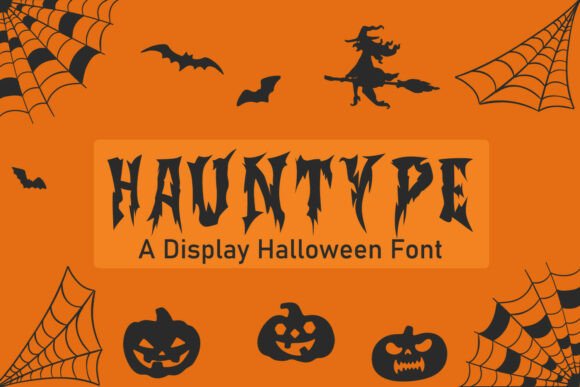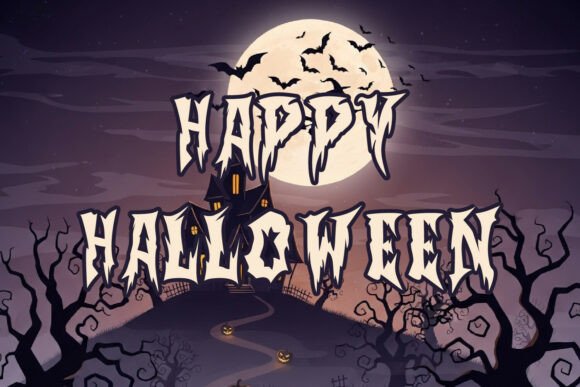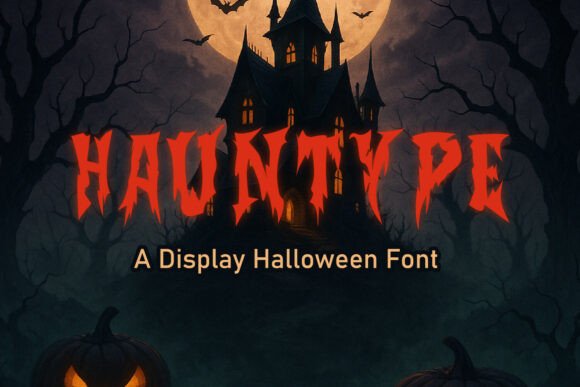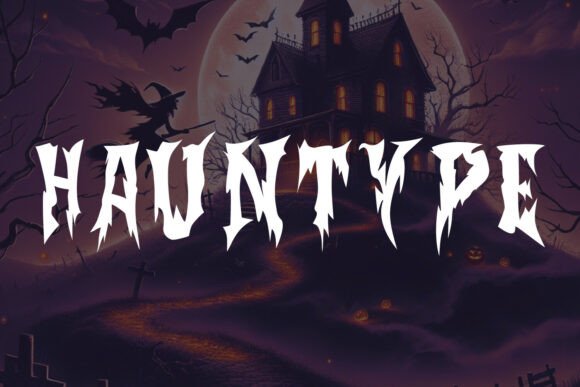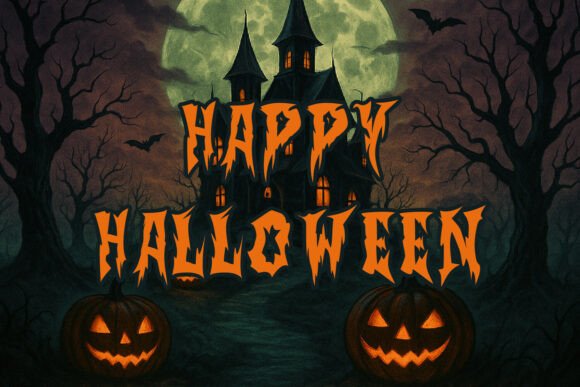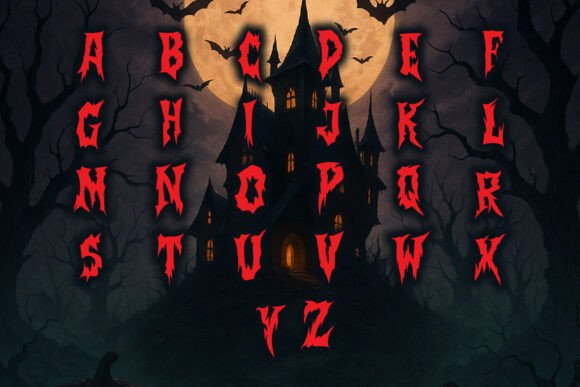
Hauntype Font: The Spooky Display Font for a Frightfully Fantastic Halloween
Are you looking for a font that will add a touch of spooky fun to your Halloween projects? Look no further than Hauntype, a creepy and eye-catching display font that’s perfect for bringing your Halloween designs to life. Whether you’re creating invitations, party flyers, posters, social media graphics, or more, Hauntype’s jagged, eerie letterforms are sure to create a haunted vibe that will leave a lasting impression.
What is Hauntype Font?
Hauntype is a unique and terrifyingly cool display font that’s specifically designed for Halloween-themed projects. Its jagged, irregular letterforms are reminiscent of creepy, abandoned mansions, haunted houses, and spooky forests, making it the perfect choice for any design that needs a touch of frightful fun. The font’s distressed texture and irregular shapes add to its eerie charm, making it a must-have for designers and crafters looking to create spooky and eye-catching designs.
Perfect for Halloween Projects
Hauntype is the perfect font for a wide range of Halloween projects, including:
- Halloween invitations: Create spooky and inviting invitations that will set the tone for a howling good time.
- Party flyers: Design eye-catching flyers that will grab attention and get people excited for your Halloween party.
- Posters: Create creepy and compelling posters that will add a touch of frightful fun to any room.
- Social media graphics: Add a touch of spooky charm to your social media graphics and make your Halloween content stand out.
- T-shirt designs: Create hauntingly cool t-shirt designs that will make your friends and family scream with delight.
Why Choose Hauntype Font?
So why choose Hauntype font for your Halloween projects? Here are just a few reasons:
- Unique and eye-catching: Hauntype’s jagged, eerie letterforms are sure to grab attention and add a touch of spooky fun to your designs.
- Perfect for kids and adults: Whether you’re designing for kids or adults, Hauntype’s playful yet creepy twist is sure to delight.
- Versatile: Hauntype is perfect for a wide range of Halloween projects, from invitations and party flyers to posters and social media graphics.
Tips for Using Hauntype Font
Here are a few tips for using Hauntype font in your Halloween designs:
- Experiment with different colors: Hauntype looks great in a range of spooky colors, from blood red to ghostly white.
- Add textures and effects: Add textures and effects to your designs to give them a more haunted and eerie feel.
- Mix and match with other fonts: Combine Hauntype with other fonts to create a unique and eye-catching design.
If you’re looking for a font that will add a touch of spooky fun to your Halloween projects, look no further than Hauntype. With its jagged, eerie letterforms and distressed texture, Hauntype is the perfect choice for any design that needs a touch of frightful fun. Whether you’re designing for kids or adults, Hauntype is sure to delight and leave a lasting impression. So why wait? Download Hauntype today and make your Halloween designs stand out!